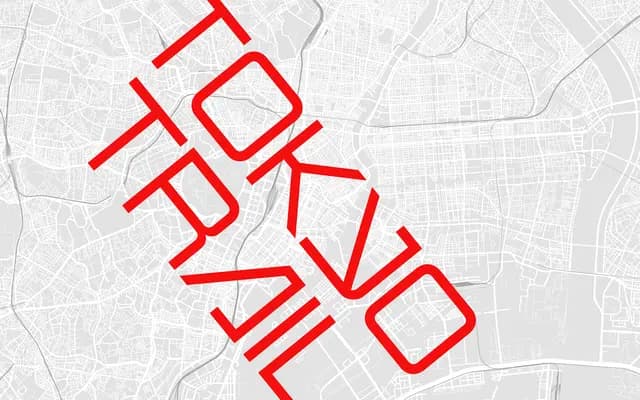
Tokyotrail
A geometric display face inspired by Tokyo's urban grid, built from square forms with vertical, horizontal and diagonal strokes.
Designed with Tokyo's city structure as its starting point, Tokyotrail draws on the sprawling metropolis's layered transport and street grids to inform its letterforms. Square, angular geometry gives it a strong graphic presence suited to posters, signage and branding where impact at large sizes matters. The multi-directional stroke construction sets it apart from conventional geometric display types.
Square, geometric letterforms with multi-directional strokes give this a constructed, architectural quality typical of display-only typefaces. It does not fit comfortably into any text category.